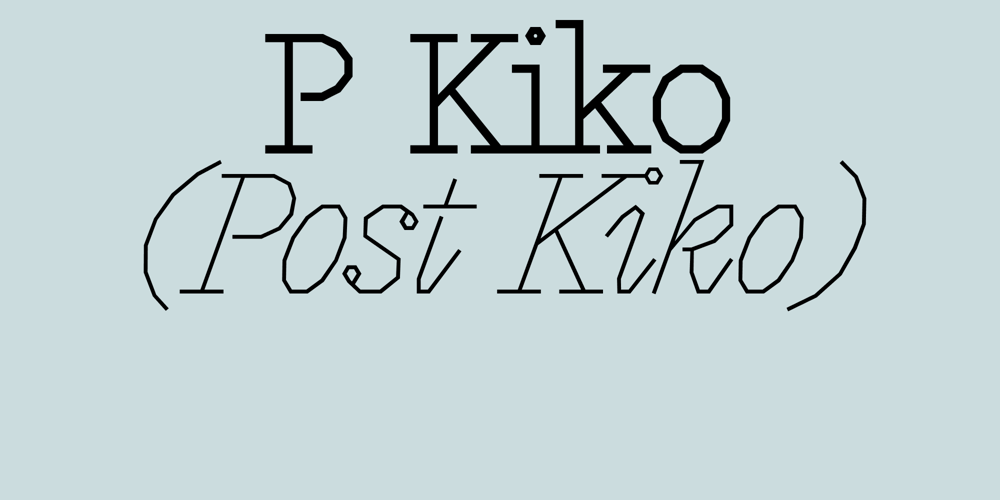
P Kiko
P Kiko font
P Kiko Font Family was designed by Sun Young Oh and published by Sun Young Oh. P Kiko contains 10 styles and family package options. P Kiko is developed further based on the core concept of Kiko*, yet it features a completely new look and feel with higher x-height and narrower italics. Several distinctive details make P Kiko stand out more, such as its empty teardrop terminal that is only filled in the heaviest weight. Additionally, it has a unique cutting intersection that creates an airy space between elements of letters, adding to its radical and modern aesthetic.*The original Kiko typeface was designed in 2019, transforming the Didone style letterforms with angular shapes.